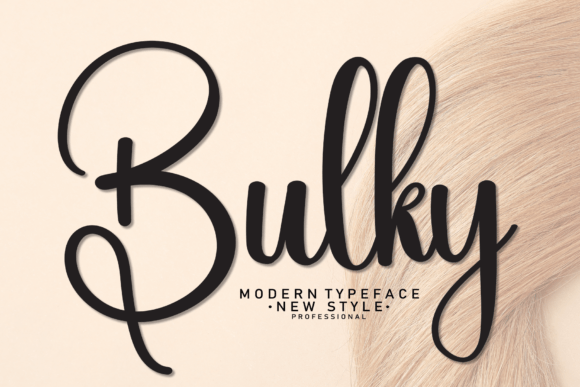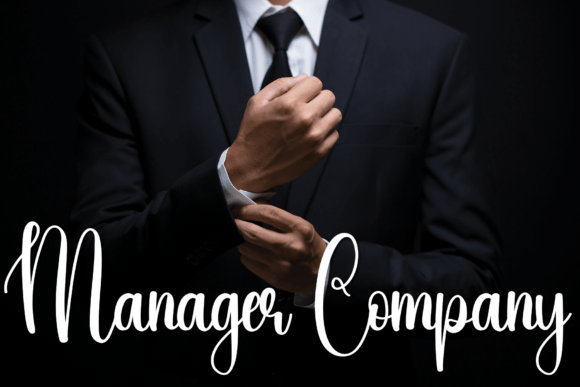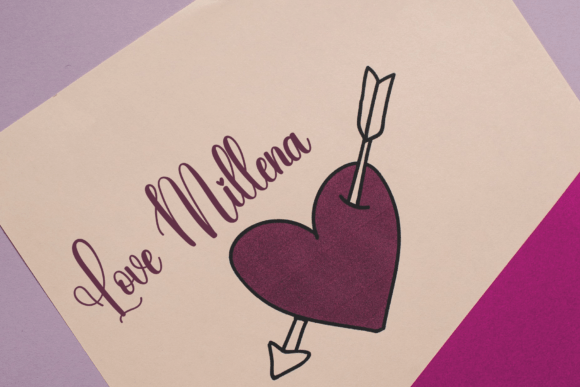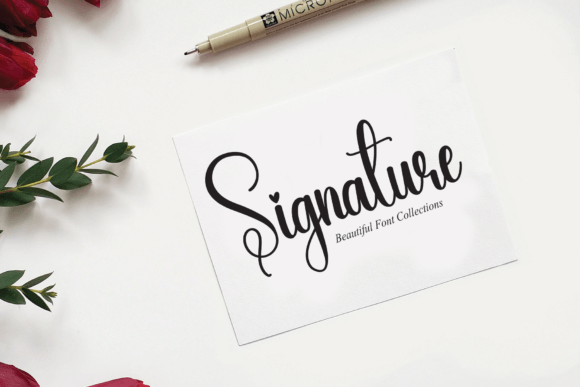
About the Bulky Font
From logos to headlines, the Bulky Font is the perfect choice for making a lasting impression. Bulky feels equally charming and elegant. It looks stunning on wedding invitations, thank you cards, quotes, greeting cards, logos, business cards, and every other design which needs a handwritten touch.